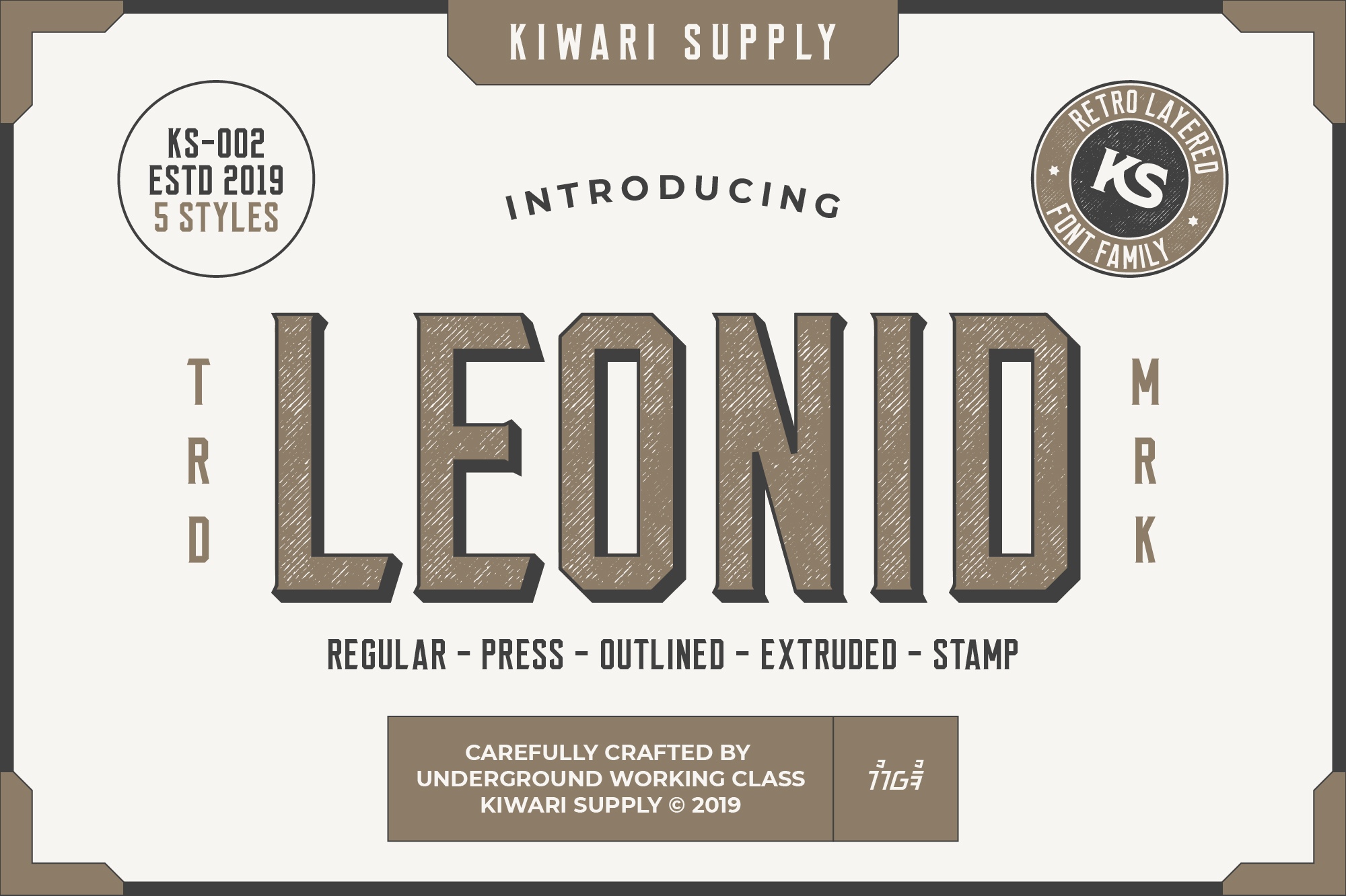
Leonid Font
Leonid Font is perfect for editorial headlines, book covers, magazine layouts, branding projects, poster designs, website headers, advertising campaigns, packaging design, logo creation, digital publications, and contemporary print materials.
What makes Leonid Font exciting is its distinctive character that combines modern sophistication with timeless readability. The font features unique letterforms that create visual impact while maintaining excellent legibility across various media formats. Its carefully balanced proportions and distinctive styling make it stand out in crowded design landscapes, offering designers a powerful tool to create memorable and engaging typography that captures attention and communicates messages with authority and style.
Leonid Font family typically includes multiple weights such as Light, Regular, Medium, Bold, and Black variations, often with corresponding italic styles. The complete family may feature extended character sets, special glyphs, and alternative letterforms that provide designers with comprehensive typographic flexibility for creating sophisticated hierarchical text structures and dynamic visual compositions.